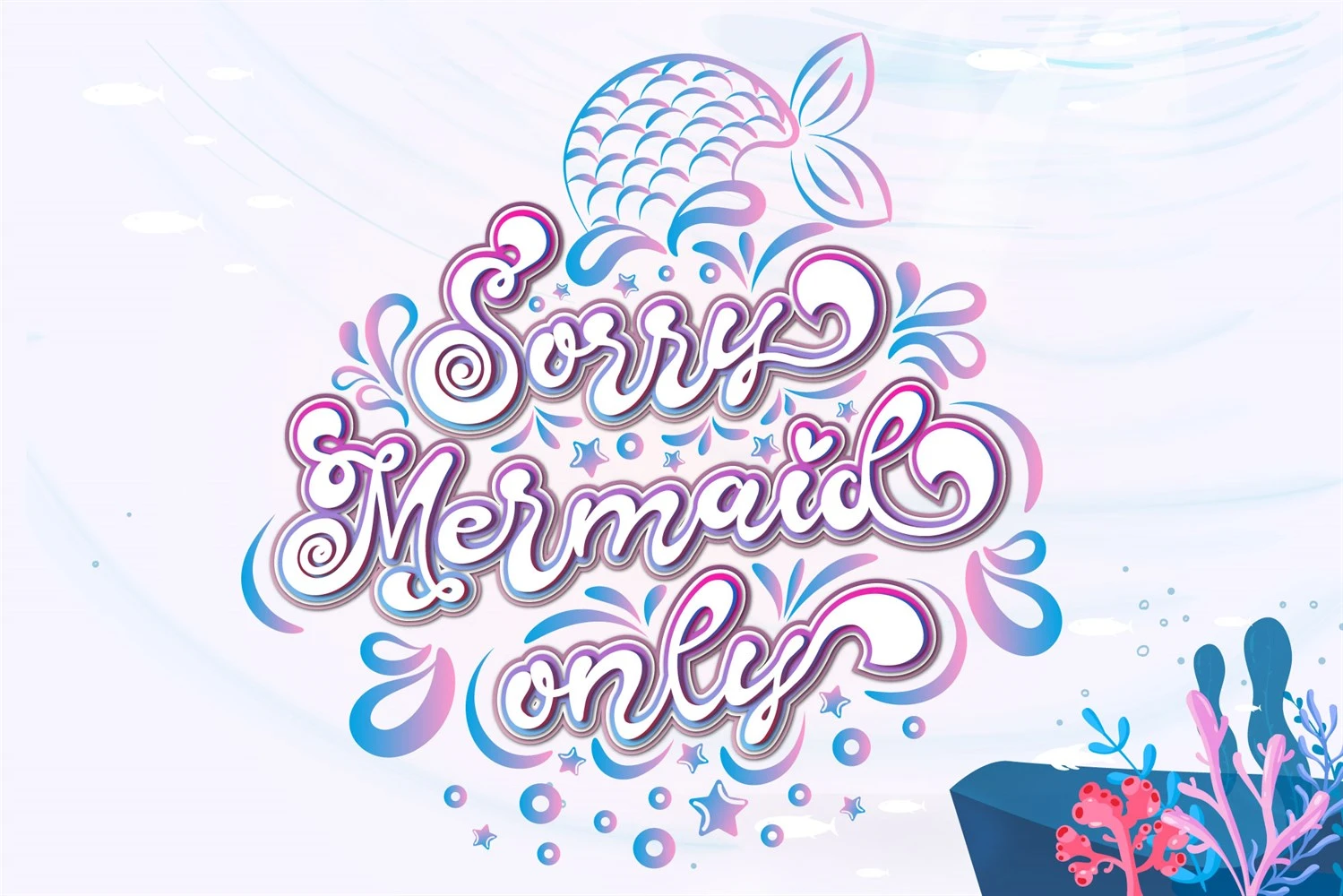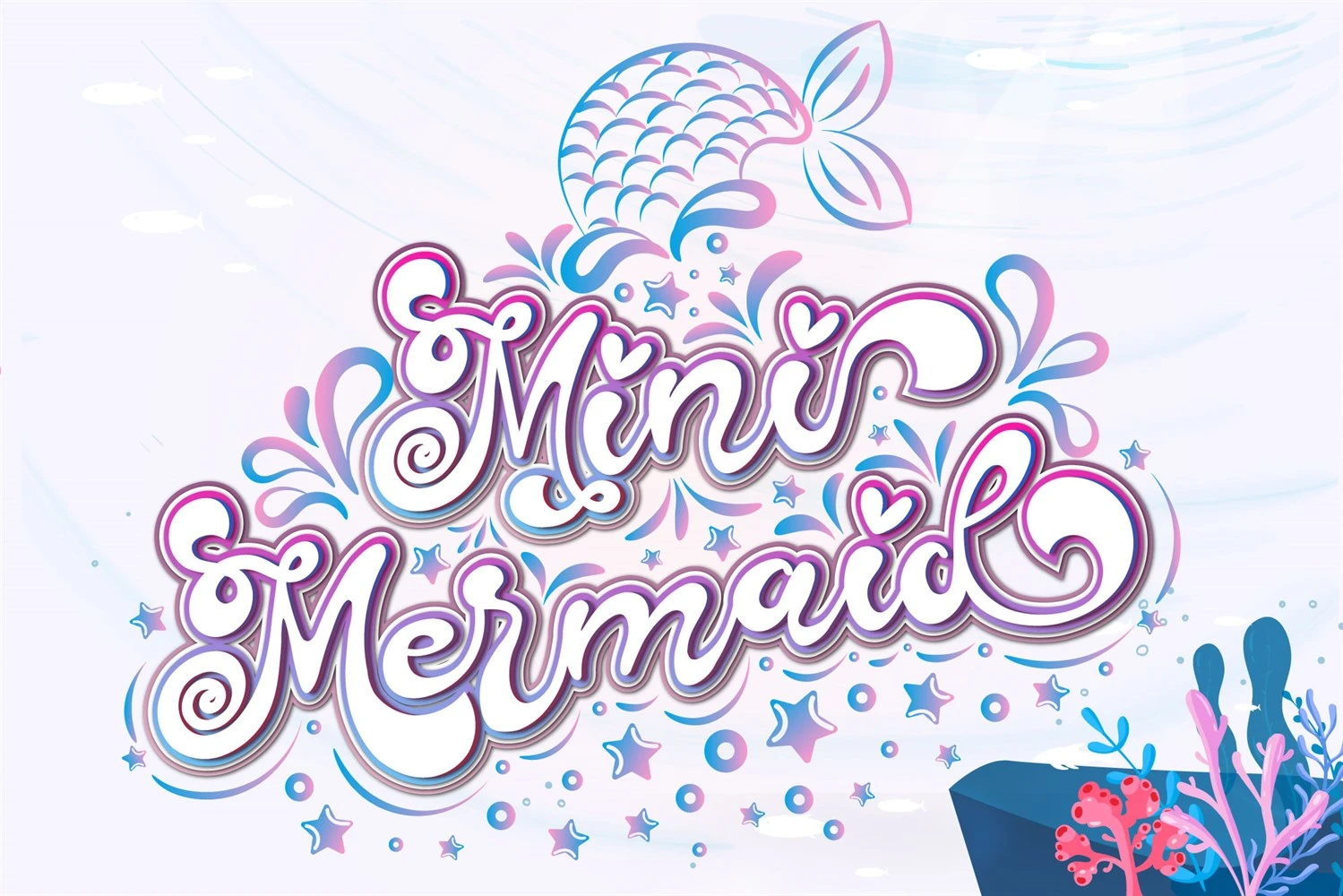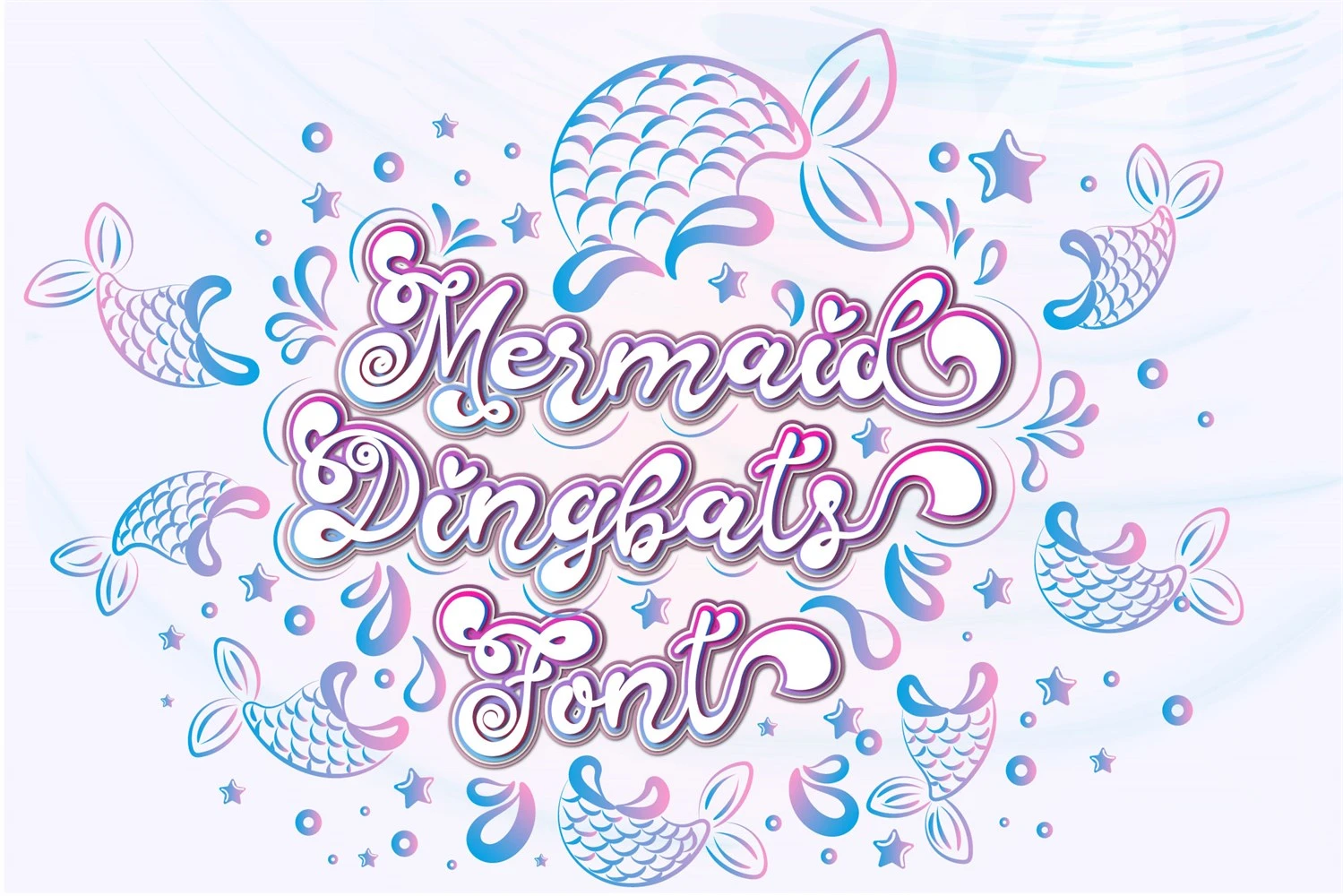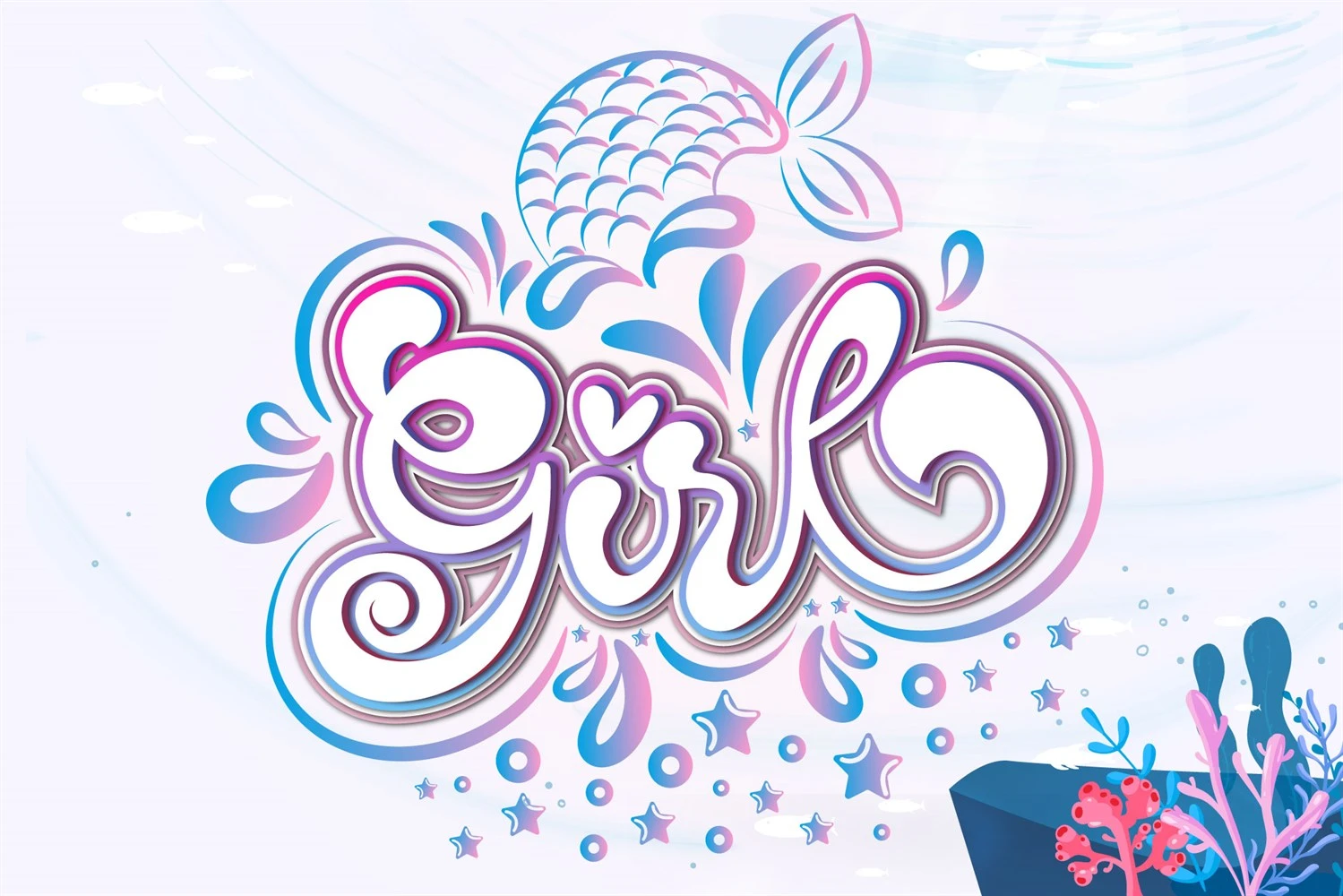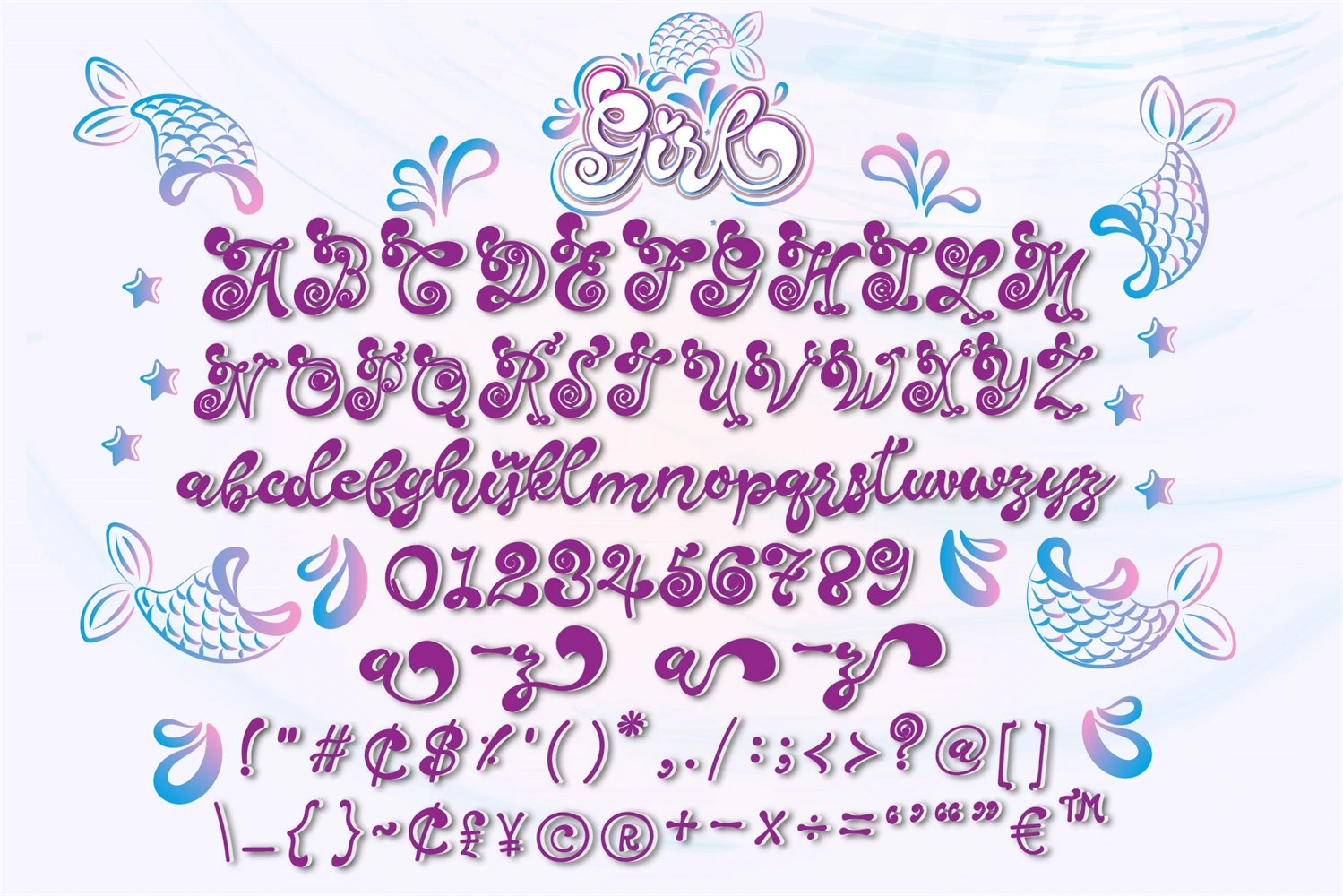
Girl Font is a cool and incredibly detailed duo font that combines a script font and dingbats. This retro-style font exudes chicness and sophistication. With its PUA encoding, accessing all the unique glyphs and swashes is a breeze! Fall in love with the versatility of this font and unleash your creativity to create spectacular designs. Whether you're designing logos, branding materials, invitations, or any other project, Girl Font is sure to make a lasting impression.
Girl Font